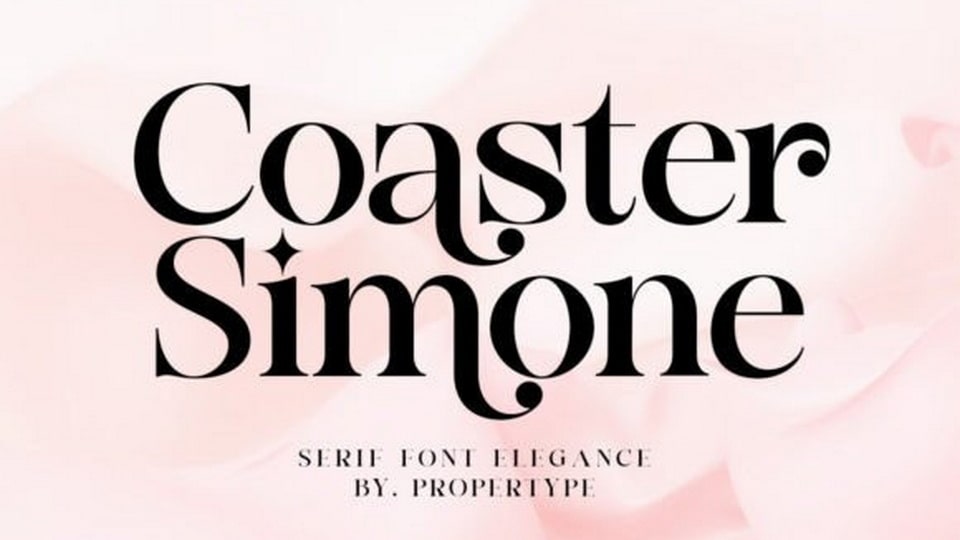
Download Coaster Simone font, a bold and assertive serif typeface. No matter the topic, this font will be an incredible asset to your fonts’ library, as it has the potential to elevate any creation.